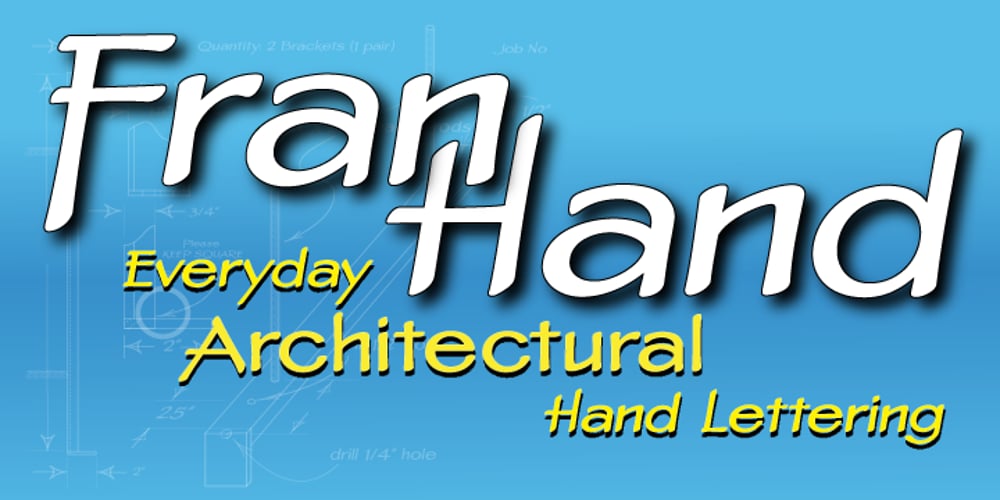
Fran Hand Font Family was designed by Francis Stephen Lestingi and published by Signs of Gold. Fran Hand contains 2 styles and family package options. The “Architect’s Font” for Everyone! Having taught Mechanical Drawing – BC (before computers), I have always wanted to digitize my every day lettering as I have previously done with my calligraphic lettering. Based on my own daily lettering style, which in turn is modeled after the hand lettering of draftsmen and architects, Fran Hand comes with Regular and Italic versions each for the same low price. Use “Fran Hand” for writing letters, fax cover sheets, invoices, spec drawings, or for enjoying a change from the prosaic and commonplace.